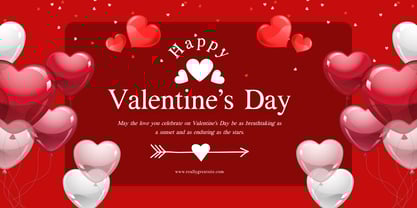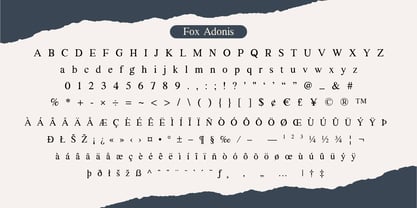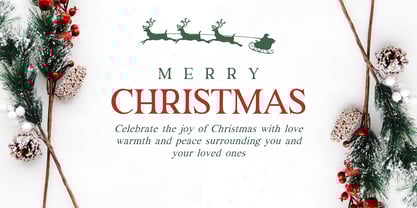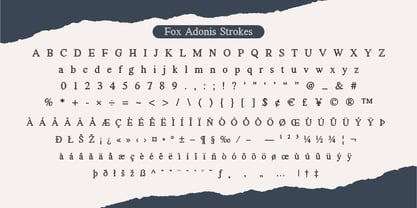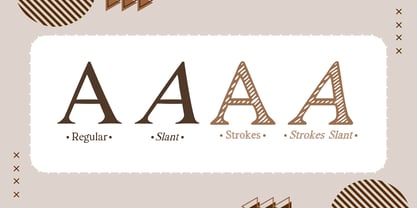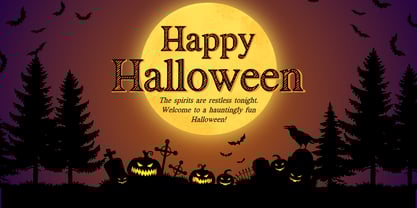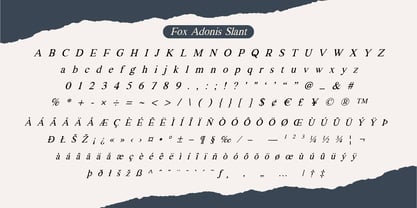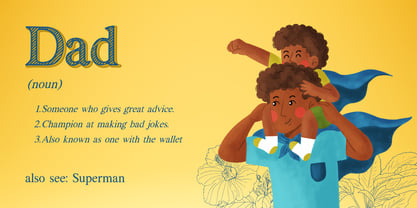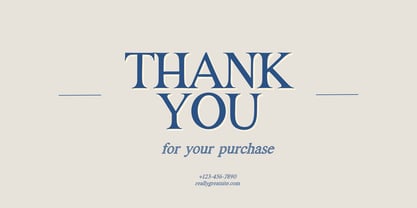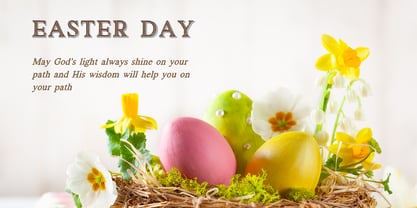
Fox Adonis
by Fox7
The Fox Adonis Font Family was designed by Rattana Rattanawan and published by Fox7. Fox Adonis contains 4 styles and family package options. More about this family
Fox Adonis is a versatile and elegant serif typeface that offers multiple styles to suit various design needs.
Regular : A classic serif style with a balanced and timeless structure, perfect for traditional and formal designs.
Slant : A slightly italicized variation that adds a dynamic and modern touch while maintaining sophistication.
Strokes : A creative outline style with visible strokes, ideal for decorative and artistic purposes.
Strokes Slant: A combination of the outline style with a slanted form, blending creativity and fluidity for unique compositions.
This typeface is suitable for branding, editorial designs, invitations, and more, allowing designers to create both elegant and eye-catching projects.